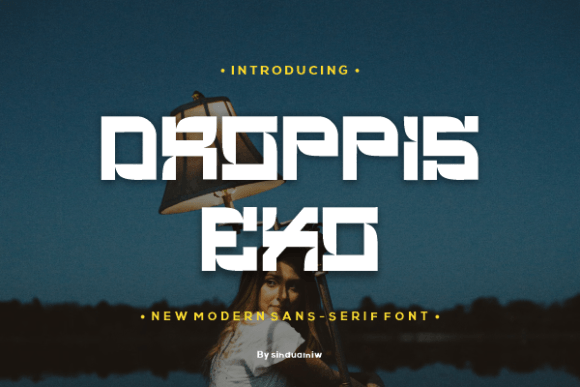
Droppis Exo Font: A Bold and Dramatic Sans Serif Display Font
In the world of graphic design, fonts play a crucial role in conveying messages and creating visual impacts. Among the numerous font styles available, sans serif display fonts have gained significant attention for their modern and edgy appeal. One such font that has made a name for itself in the design community is the Droppis Exo Font. In this article, we’ll explore the features and benefits of this font, as well as the characteristics of sans serif display fonts in general.
What is a Sans Serif Display Font?
A sans serif display font is a typeface without serifs, specifically designed for use in large sizes in graphic design. Unlike regular sans serif fonts, this font has a more dramatic appearance, highlighting its design elements to create a strong visual impact. Sans serif fonts, in general, are known for their clean and modern look, making them a popular choice for digital media and modern designs.
Characteristics of Sans Serif Display Fonts
- Clean and Modern Look: Sans serif display fonts have a sleek and contemporary appearance, making them perfect for designs that require a modern touch.
- Dramatic Appearance: These fonts are designed to make a statement, with bold lines and striking features that grab attention.
- Legibility: Sans serif display fonts are optimized for large sizes, ensuring that they remain legible even at bigger font sizes.
- Versatility: These fonts can be used in various design contexts, from posters and billboards to digital screens and social media.
Introducing Droppis Exo Font
Droppis Exo Font is a sans serif display font that embodies the characteristics of this font style. Designed with a focus on boldness and elegance, Droppis Exo Font is perfect for designers looking to create striking visual impacts. Its unique design elements, such as the geometric shapes and sharp lines, make it an excellent choice for headlines, titles, and other display purposes.
Key Features of Droppis Exo Font
- Geometric Design: Droppis Exo Font features a geometric design, with clean lines and sharp edges that create a modern and edgy look.
- Bold and Elegant: This font is designed to be bold and elegant, making it perfect for high-impact designs that require a touch of sophistication.
- High Legibility: Droppis Exo Font is optimized for large sizes, ensuring that it remains legible even at bigger font sizes.
- Versatile: This font can be used in various design contexts, from print materials to digital screens.
Uses of Droppis Exo Font
Droppis Exo Font is a versatile font that can be used in various design contexts. Here are some examples of how you can use this font:
Design Applications
- Headlines and Titles: Use Droppis Exo Font to create bold and eye-catching headlines and titles that grab attention.
- Posters and Billboards: This font is perfect for posters and billboards, where its bold and dramatic appearance can be fully utilized.
- Digital Screens: Droppis Exo Font can be used in digital screens, such as video games, apps, and websites, to create a modern and edgy look.
- Branding and Advertising: This font can be used in branding and advertising materials, such as logos, brochures, and flyers, to create a bold and memorable visual identity.
Benefits of Using Droppis Exo Font
Using Droppis Exo Font offers several benefits, including:
Advantages of Droppis Exo Font
- Unique Visual Identity: Droppis Exo Font helps create a unique visual identity that sets your design apart from others.
- Improved Legibility: This font is optimized for large sizes, ensuring that your message is conveyed clearly and effectively.
- Flexibility: Droppis Exo Font can be used in various design contexts, making it a versatile addition to your font library.
- Modern and Edgy Look: This font adds a modern and edgy touch to your designs, making them more engaging and attention-grabbing.
In conclusion, Droppis Exo Font is a powerful sans serif display font that can elevate your designs to the next level. Its bold and elegant design, combined with its high legibility and versatility, make it an excellent choice for designers looking to create striking visual impacts. Whether you’re working on a poster, billboard, or digital screen, Droppis Exo Font is a great option to consider.
Final Thoughts
Sans serif display fonts, such as Droppis Exo Font, offer a unique set of benefits that can enhance your designs. By understanding the characteristics and uses of these fonts, you can create visually stunning designs that capture your audience’s attention. So, next time you’re looking for a font that makes a statement, consider Droppis Exo Font and experience the power of sans serif display fonts.